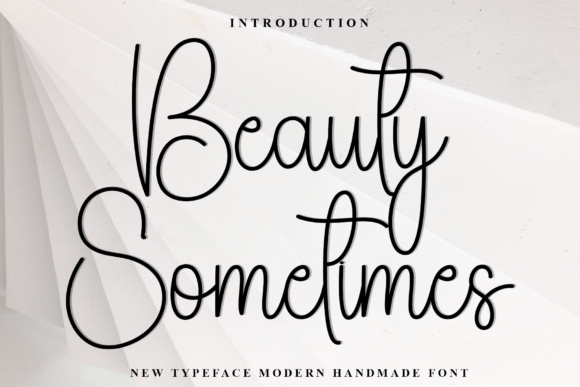
Beauty Sometimes Font: A Casual and Creative Typeface for Your Designs
Are you looking for a font that can add a touch of warmth and friendliness to your designs? Look no further than the Beauty Sometimes font. This charming, hand-drawn typeface is perfect for personal projects, invitations, social media graphics, and more. In this article, we’ll take a closer look at the Beauty Sometimes font, its features, and how you can use it to elevate your designs.
What is Beauty Sometimes Font?
Beauty Sometimes is a casual and creative font that exudes warmth and friendliness. Its round, playful strokes create a relaxed and approachable feel, making it perfect for designs that require a personal touch. The font’s charming, hand-drawn aesthetic adds a fun and unique touch to any design, setting it apart from more traditional typefaces.
Key Features of Beauty Sometimes Font
- Casual and Creative: Beauty Sometimes font is designed to be casual and creative, making it perfect for personal projects and social media graphics.
- Warm and Friendly: The font’s round, playful strokes create a warm and friendly feel that’s perfect for designs that require a personal touch.
- Hand-Drawn Aesthetic: The font’s charming, hand-drawn aesthetic adds a fun and unique touch to any design.
Use Cases for Beauty Sometimes Font
Beauty Sometimes font is versatile and can be used for a variety of design projects, including:
- Personal Projects: Use Beauty Sometimes font for personal projects such as photo albums, scrapbooking, and DIY crafts.
- Invitations: The font’s casual and creative feel makes it perfect for invitations, including birthday parties, weddings, and baby showers.
- Social Media Graphics: Beauty Sometimes font is ideal for social media graphics, including Facebook posts, Instagram stories, and Twitter headers.
- Branding: The font’s unique and charming aesthetic makes it perfect for branding projects, including logos, business cards, and letterheads.
Benefits of Using Beauty Sometimes Font
There are several benefits to using Beauty Sometimes font, including:
- Unique Aesthetic: The font’s charming, hand-drawn aesthetic adds a unique touch to any design.
- Easy to Read: The font’s round, playful strokes make it easy to read, even at small sizes.
- Versatile: Beauty Sometimes font is versatile and can be used for a variety of design projects.
Tips and Tricks for Using Beauty Sometimes Font
Here are some tips and tricks for using Beauty Sometimes font:
- Use it for Headings: Use Beauty Sometimes font for headings and titles to add a touch of personality to your designs.
- Pair it with Other Fonts: Pair Beauty Sometimes font with other fonts to create a unique and interesting contrast.
- Experiment with Colors: Experiment with different colors to find the perfect match for your design.
- Use it for Text: Use Beauty Sometimes font for text to add a touch of warmth and friendliness to your designs.
Beauty Sometimes font is a charming, hand-drawn typeface that’s perfect for personal projects, invitations, social media graphics, and more. Its casual and creative feel, combined with its unique aesthetic, make it a great addition to any design project. With its compatibility with various application engines and easy-to-use interface, Beauty Sometimes font is a must-have for any designer looking to add a touch of personality to their designs.
- What is Beauty Sometimes font? Beauty Sometimes font is a casual and creative typeface that exudes warmth and friendliness.
- What is the font’s style? The font’s style is charming, hand-drawn, and playful.
- What are the font’s key features? The font’s key features include casual and creative design, warm and friendly feel, hand-drawn aesthetic, and PUA Encoded glyphs.
- What are the use cases for Beauty Sometimes font? The font can be used for personal projects, invitations, social media graphics, branding, and more.